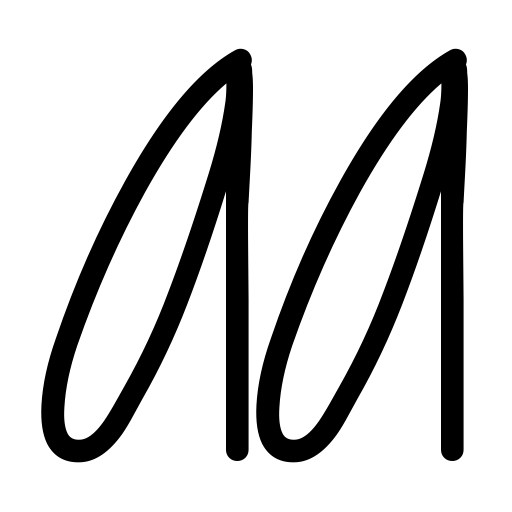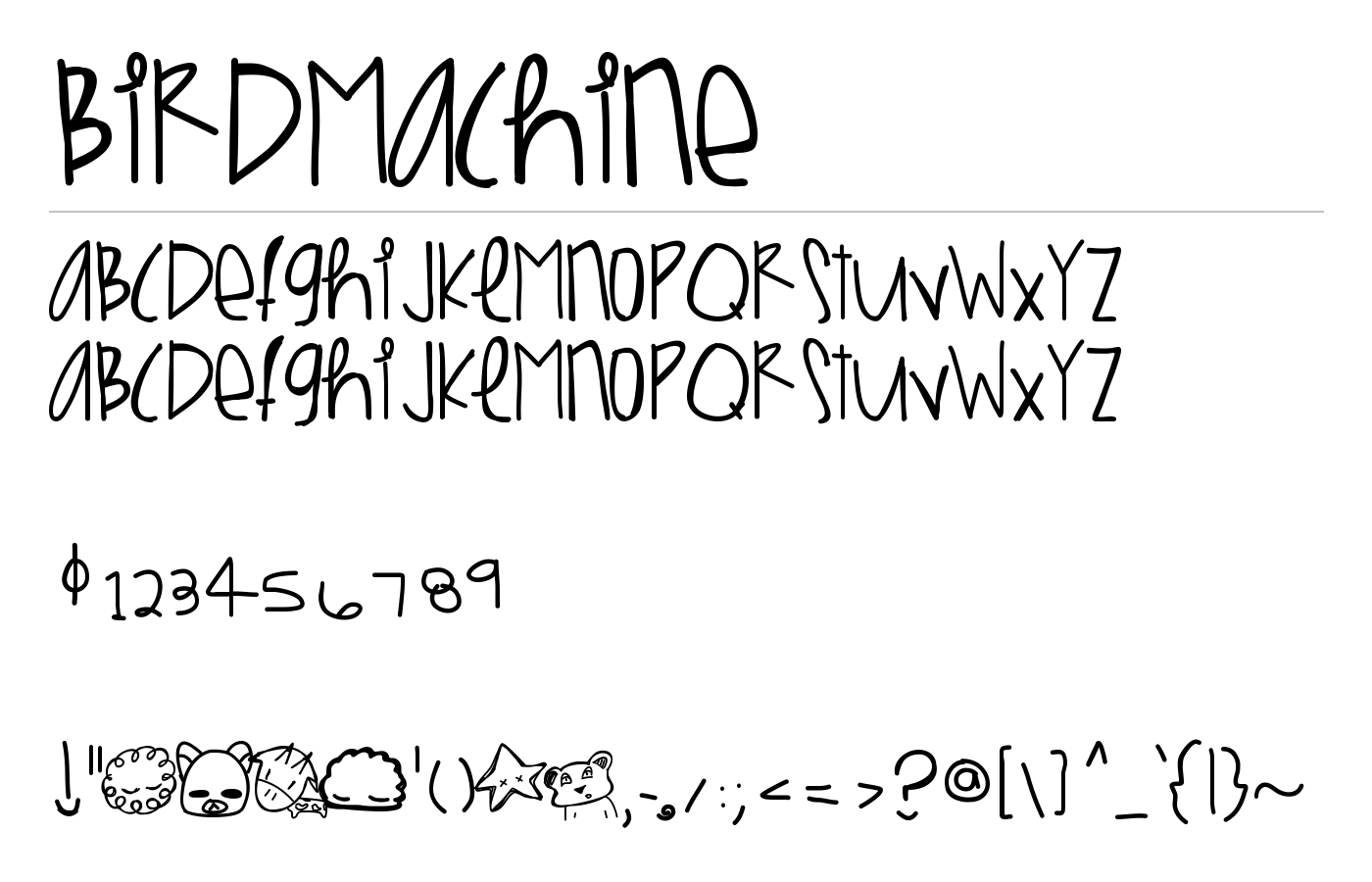
BirdMachine is a playful, handwritten sans serif font with a casual and quirky feel. Its narrow, tall letterforms and uneven strokes create a lively, informal style perfect for creative projects or children’s designs. This font works well in logos, packaging, and headlines where a friendly, approachable personality is desired.
BirdMachine Font
About BirdMachine Font